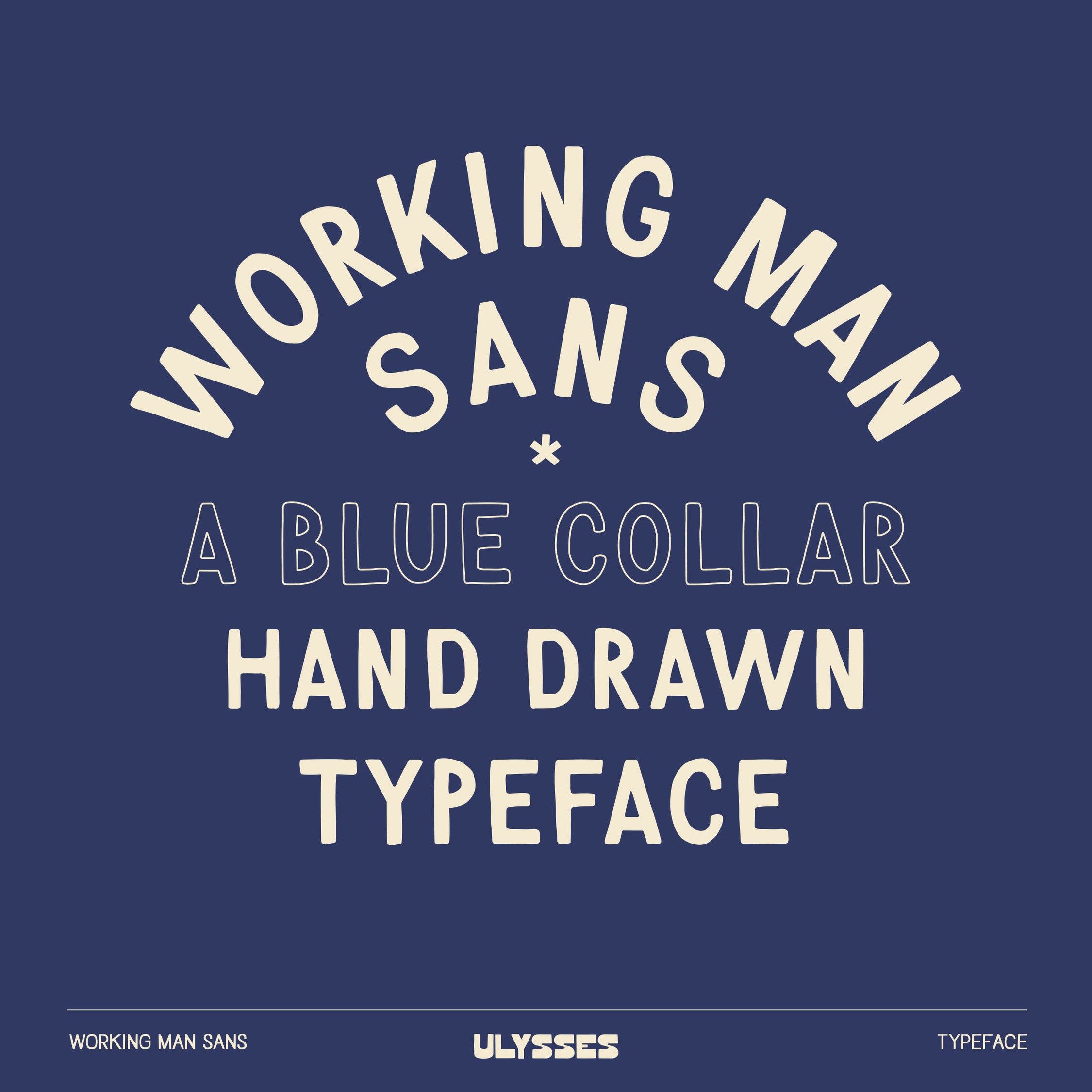
Working Man Sans Hand Drawn Font
Working Man Sans is a hand-drawn typeface from Ulysses Design Co., featuring bold strokes and a practical design inspired by vintage signage. It offers clarity and character, making it suitable for various design applications.
Ideal for vintage-inspired graphic design and branding projects. Perfect for posters, signage, packaging, and album covers, ensuring a bold and authentic visual presence that resonates with audiences.